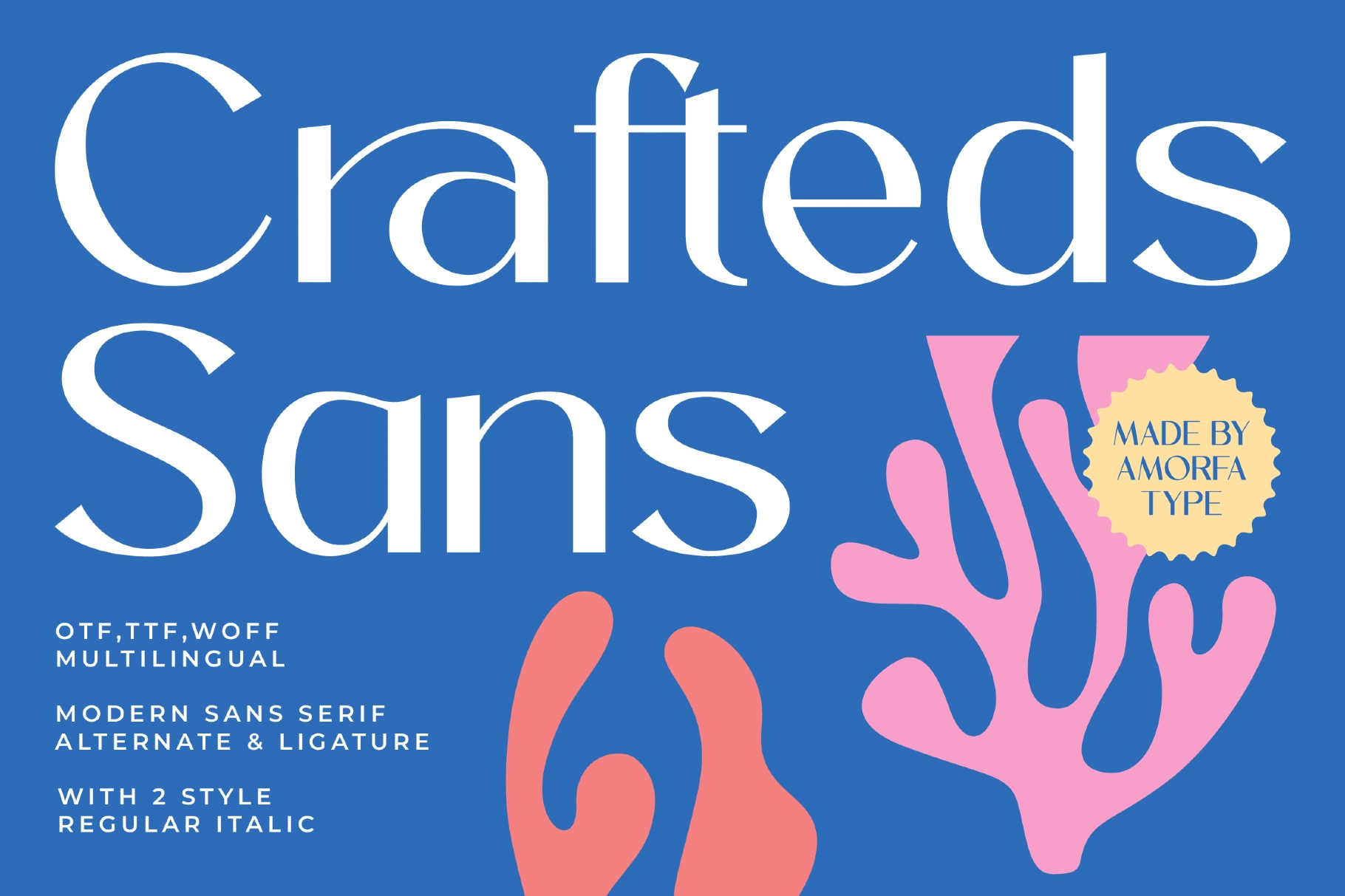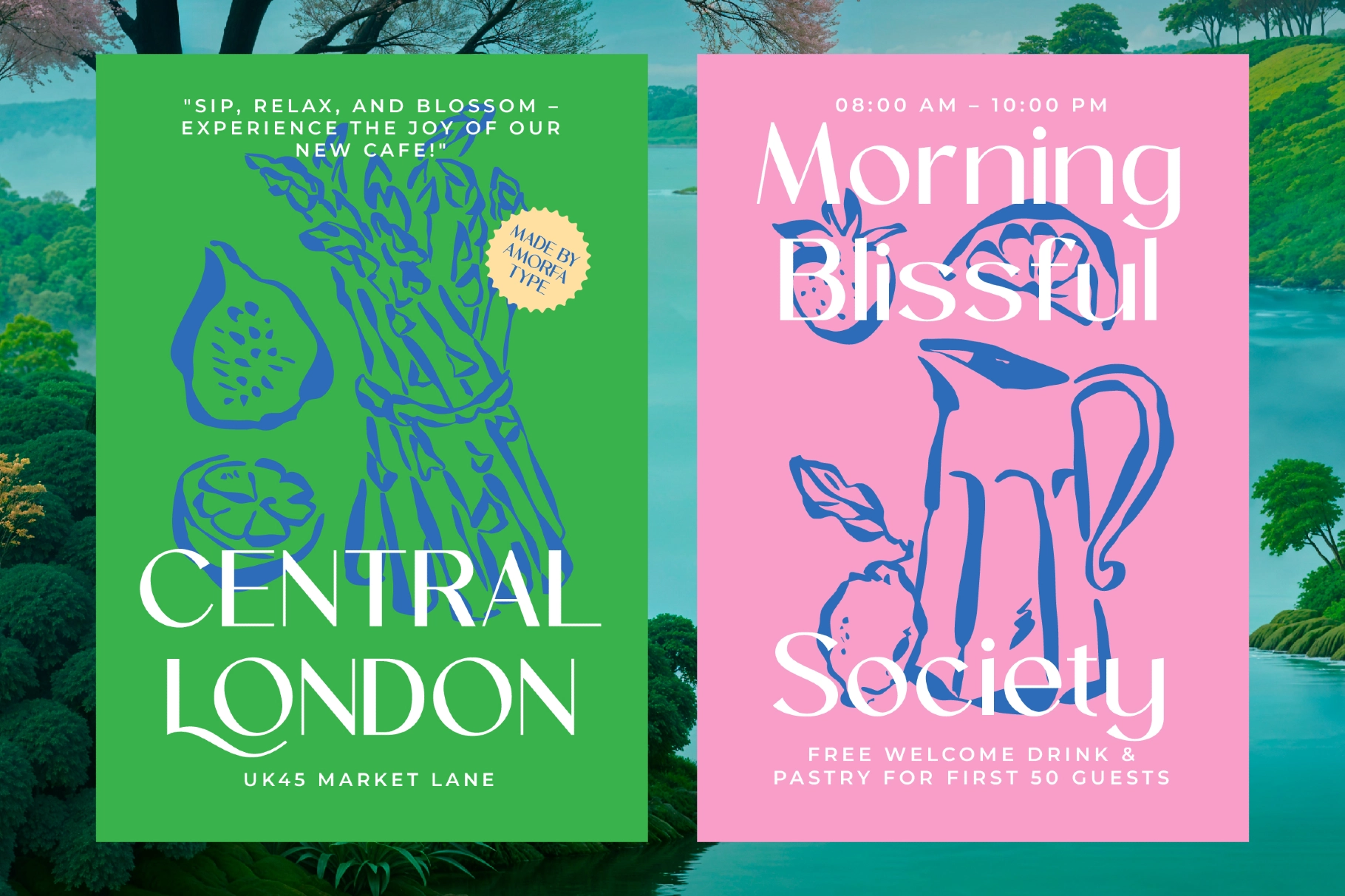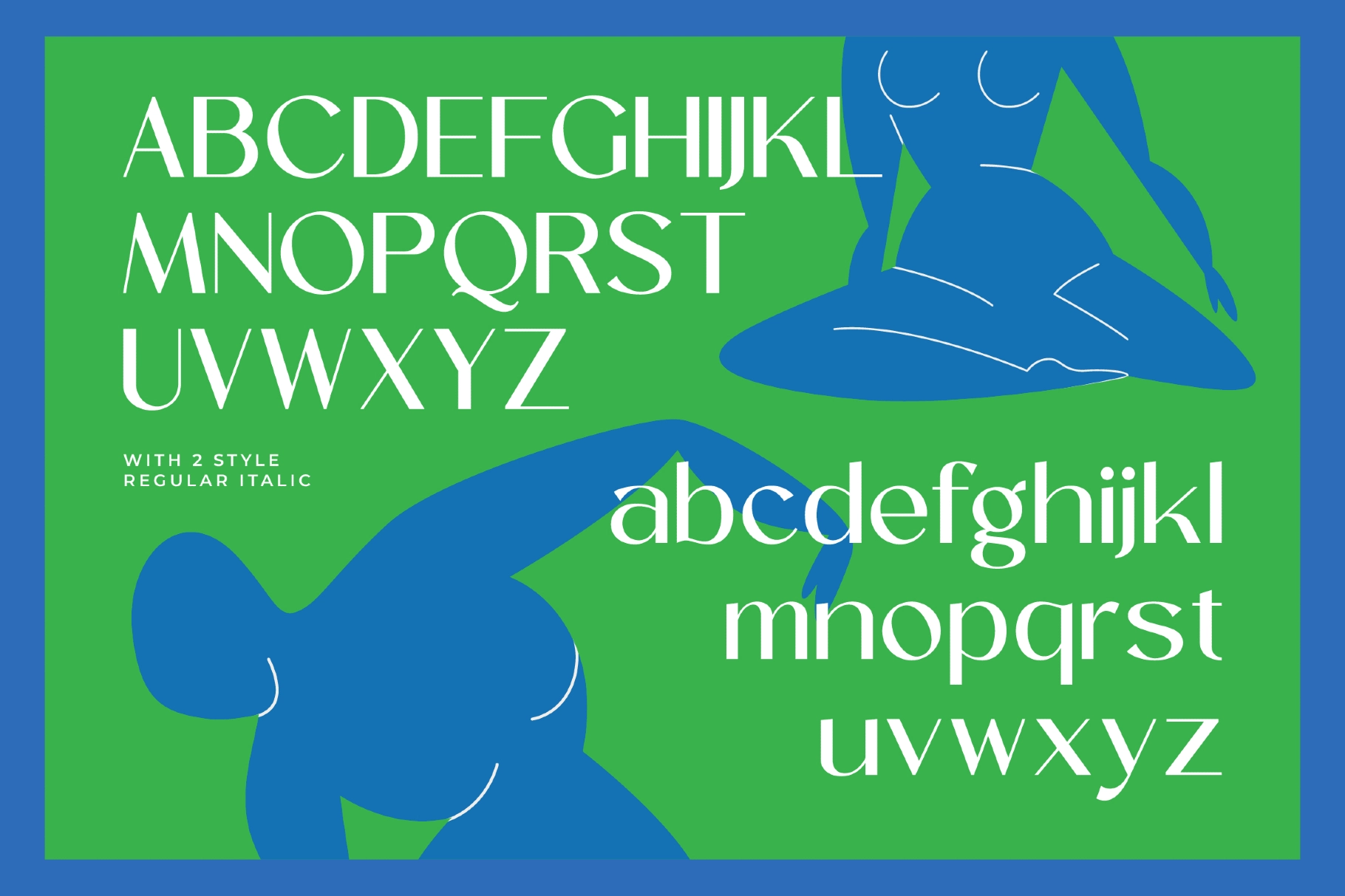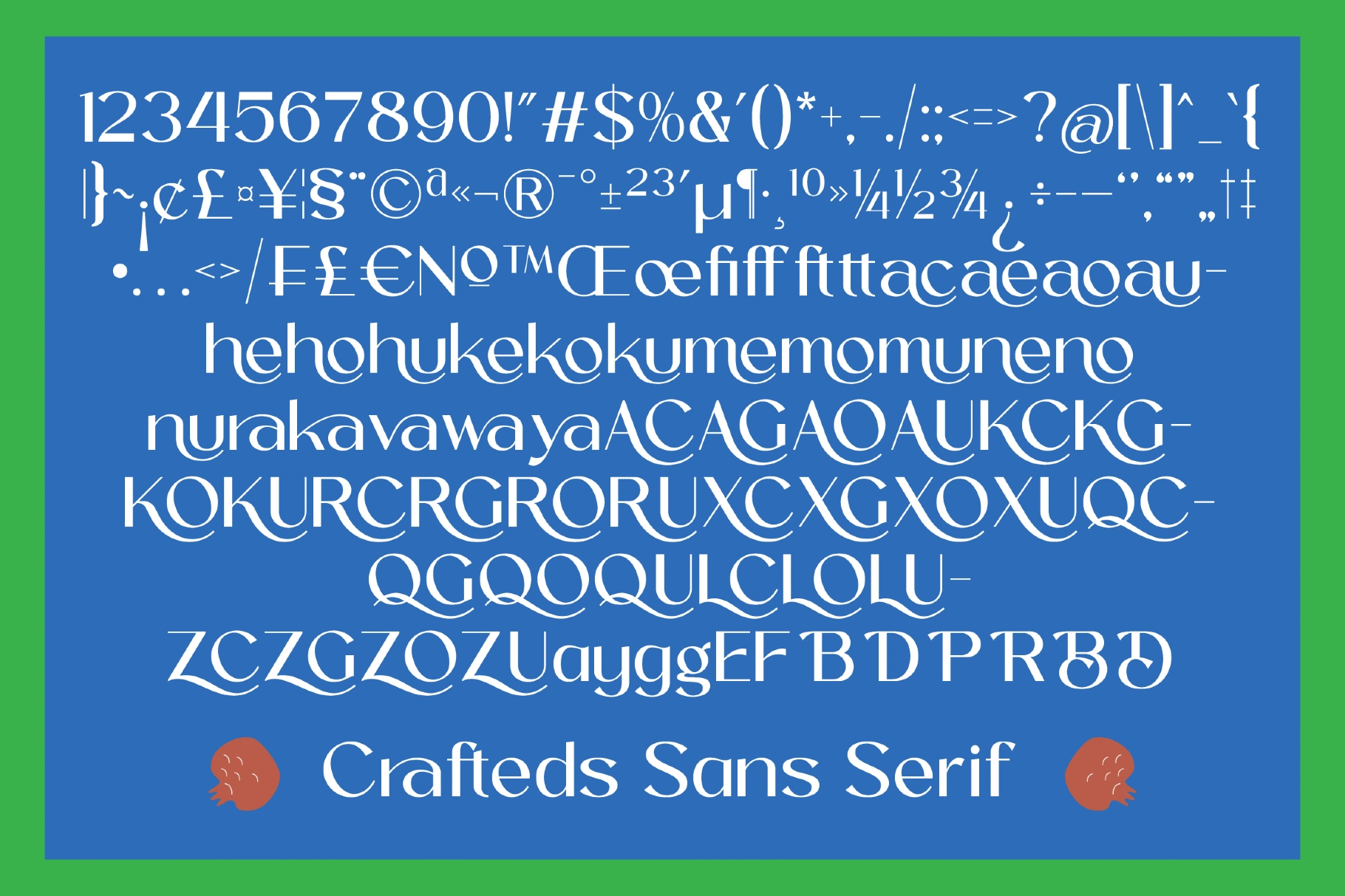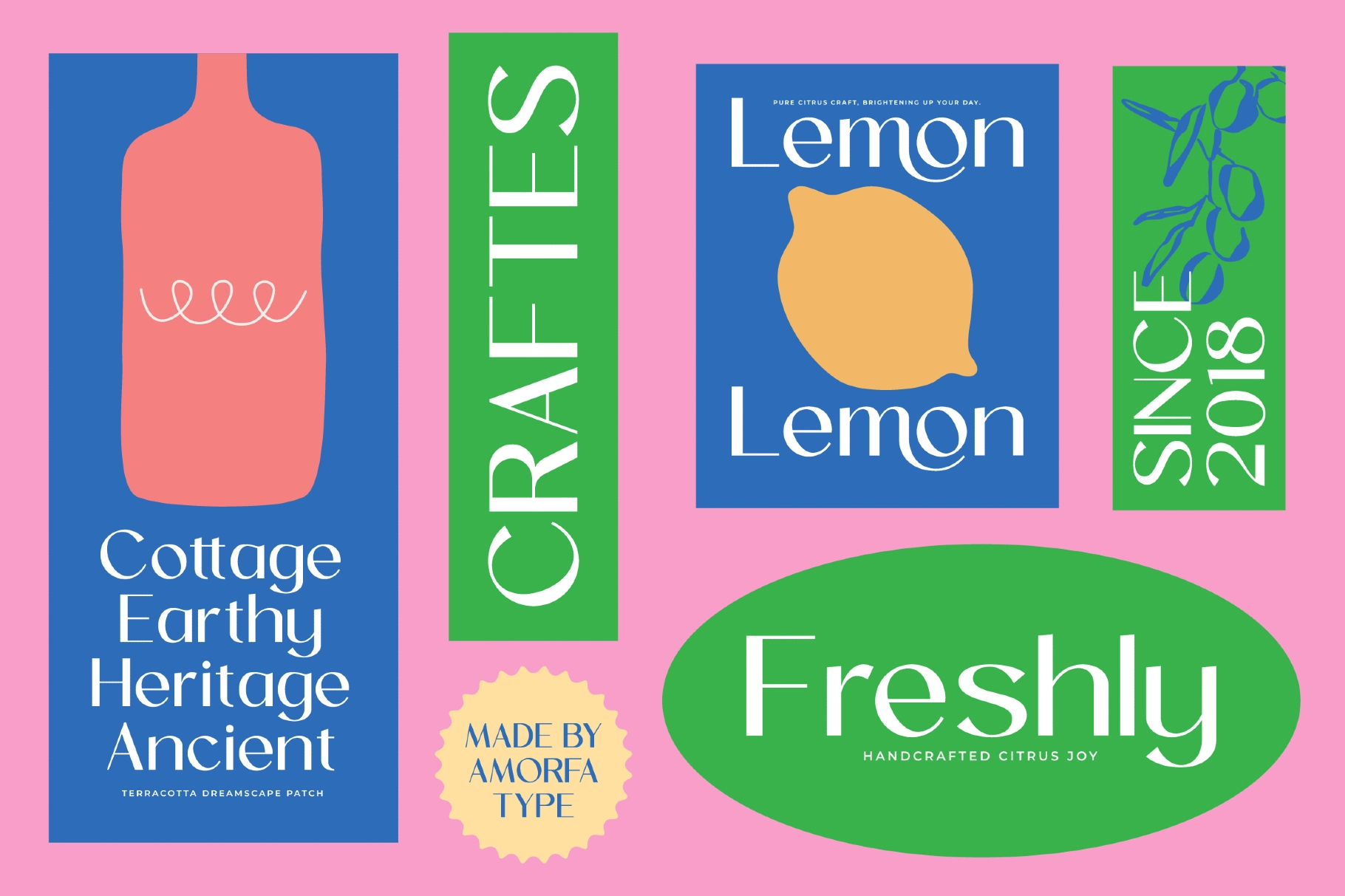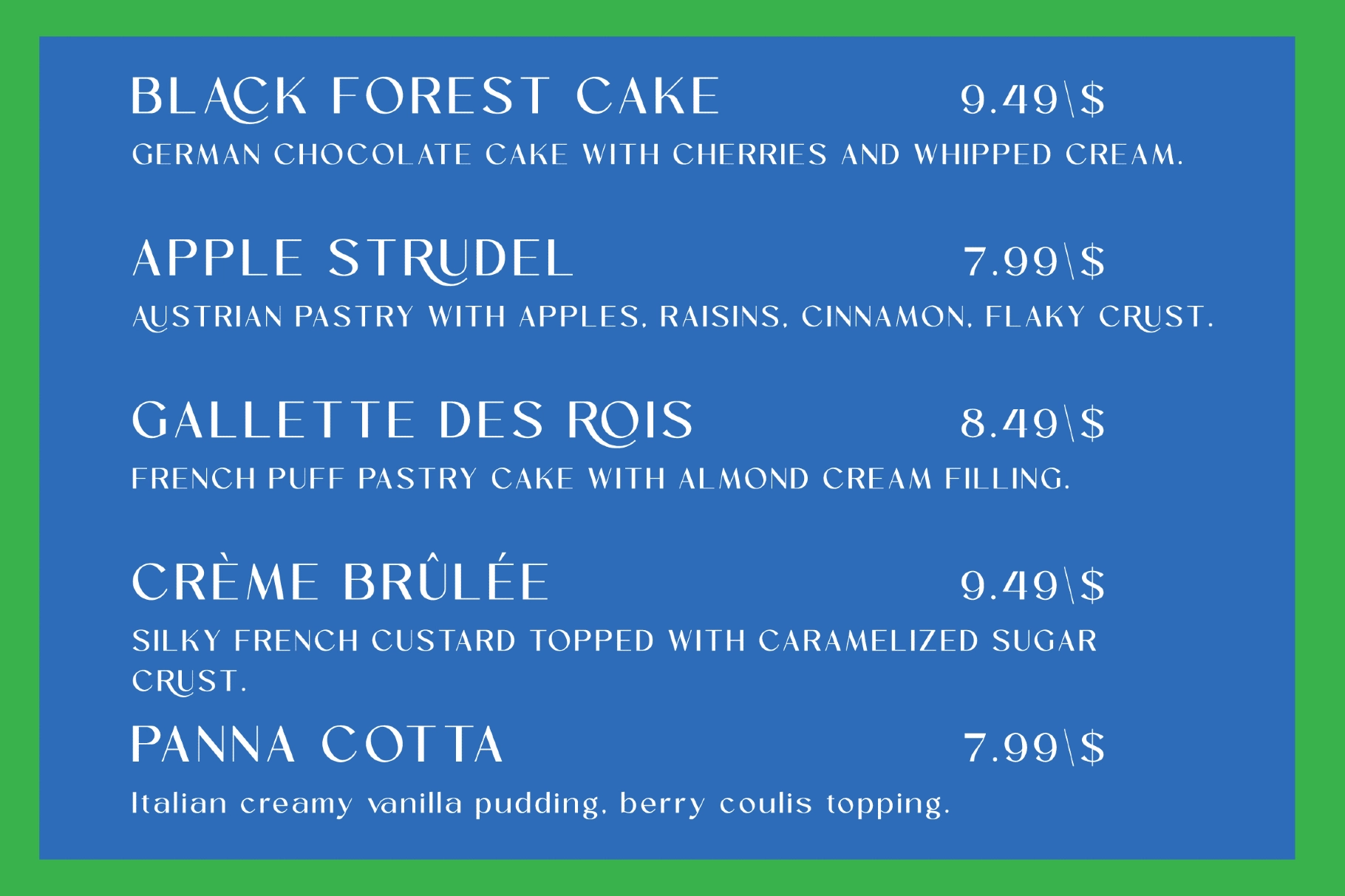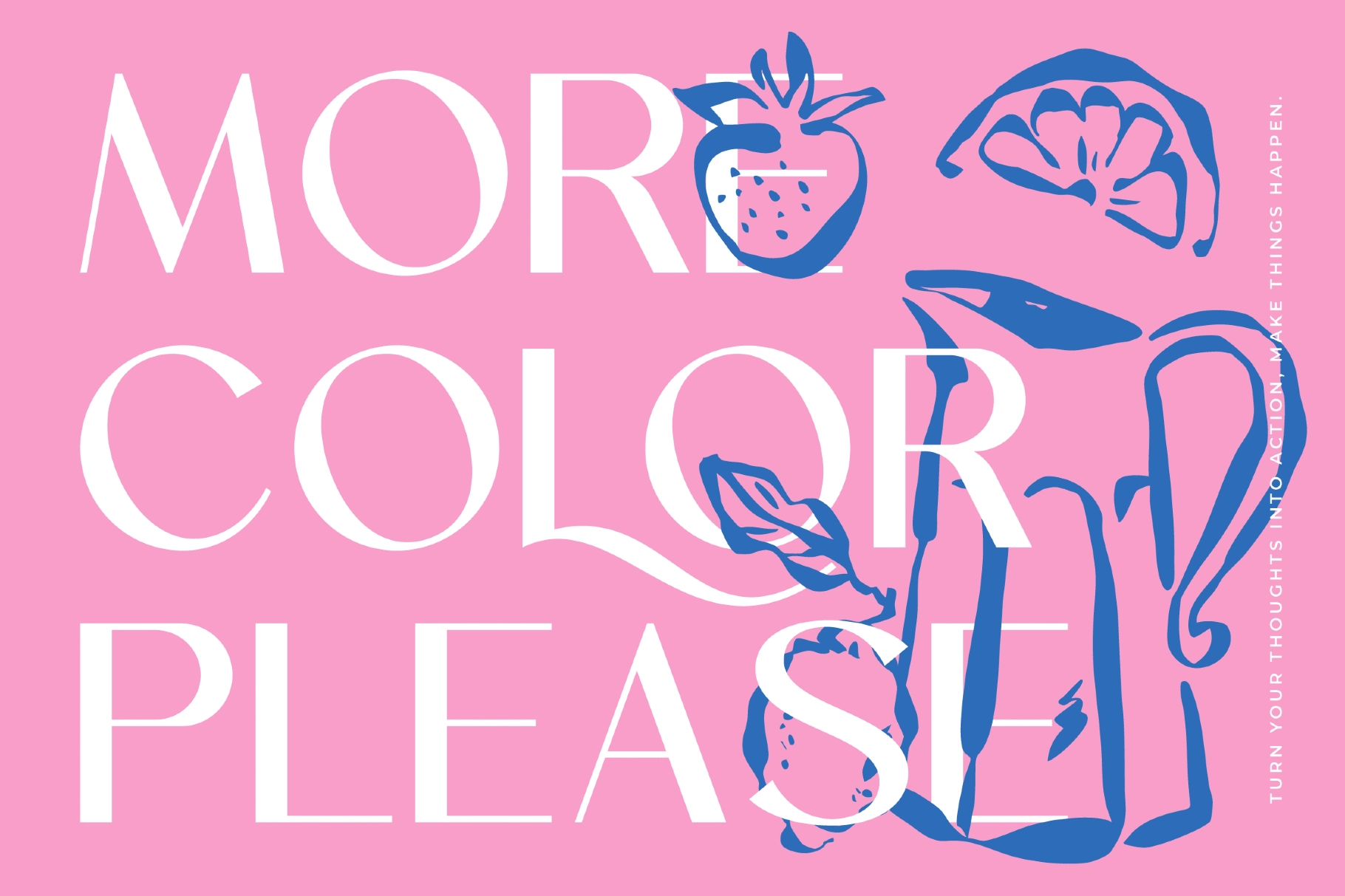
Crafteds - Modern Sans Serif Font
Crafteds has the proportions and optical warmth of the mid-century continental sans — wide apertures, a high-waisted lowercase, and a stroke contrast that stops just short of editorial serif territory. At display size it reads as a humanist sans serif display font with enough personality to anchor a poster headline; at text size the spacing holds and the rhythm stays readable. The italic adds a calligraphic slant without tipping into script, which gives the pair a natural editorial range.
It works across colour-saturated, Matisse-adjacent layouts as naturally as on a clean white brand page. Use it for restaurant menus, café branding, packaging headers, magazine mastheads, editorial pull quotes, event posters, cosmetic labels, social campaign headlines, logo lockups, web hero type, and app onboarding screens.
• Uppercase & lowercase;
• Numerals, punctuation & symbols;
• Ligatures & alternates;